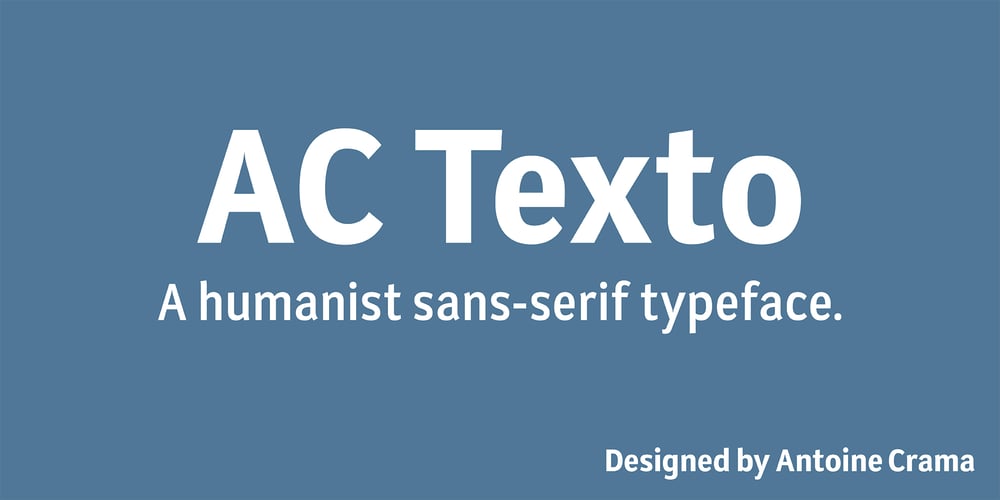
AC Texto Pro Font Family was designed by Antoine Crama and published by Antoine Crama. AC Texto Pro contains 18 styles and family package options. Texto is a synonym of SMS (Short Message Service) in french. As a SMS that you would send or receive from a friend, this typeface is friendly, warm and informal. It is a humanist sans-serif typeface that comes in 9 weights to meet all needs.The Pro version brings new OpenType features, such as small capitals and old style figures.